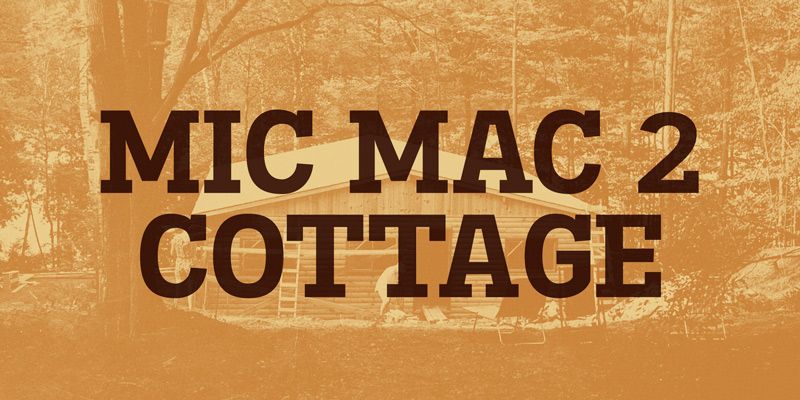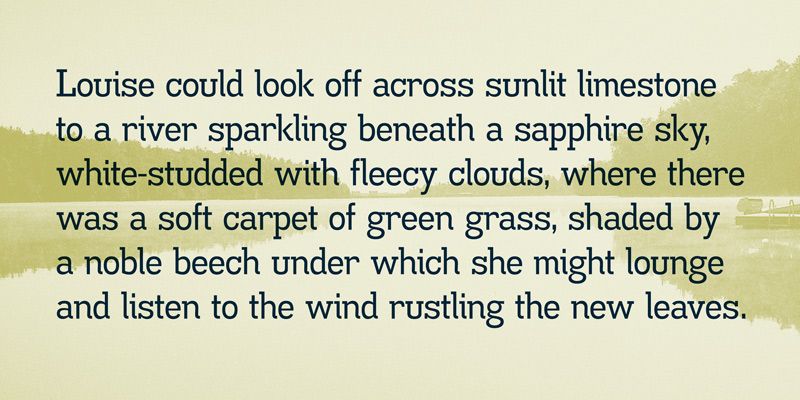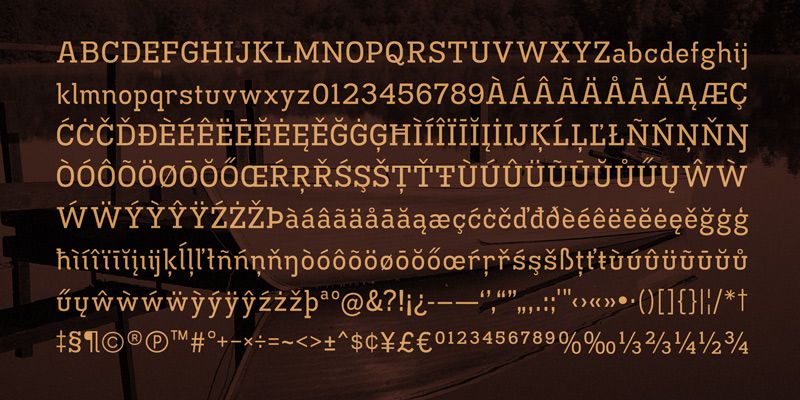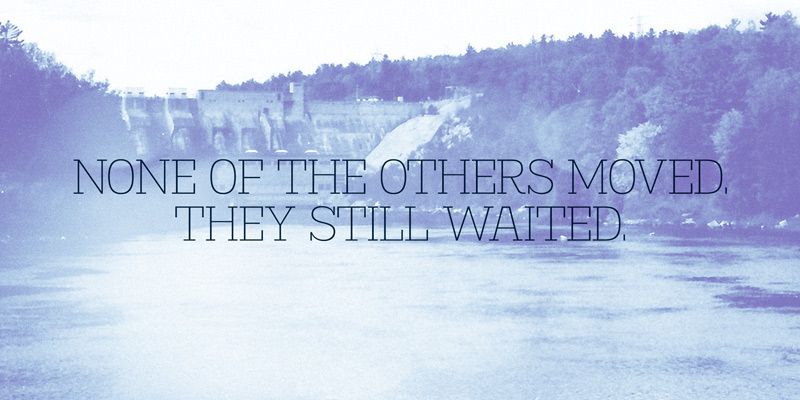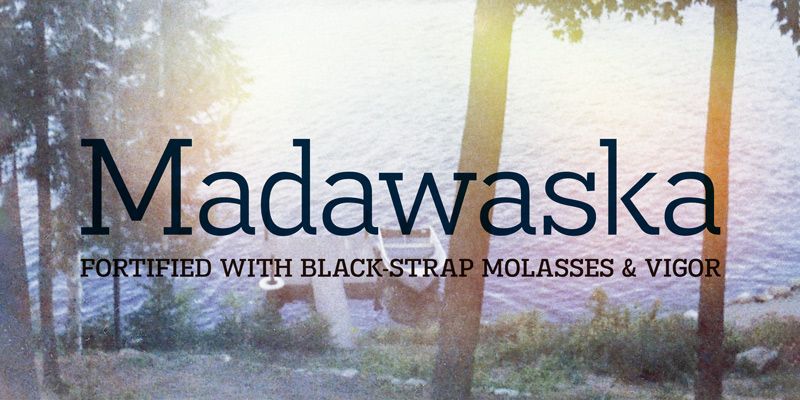
Madawaska is a sturdy Canadian slab serif with enough range to carry more than a single rustic headline. Its firm serifs and straightforward construction give outdoor names, field guides, workshop graphics, and regional packaging a practical voice. Seven weights, each with an italic, let the same character move from light supporting lines to heavy titles without forcing a change of family. Use the italics for captions or emphasis, and the stronger uprights where a sign or product name needs to stand its ground. The result feels durable and familiar, with less theatrical nostalgia than a deliberately distressed western face.